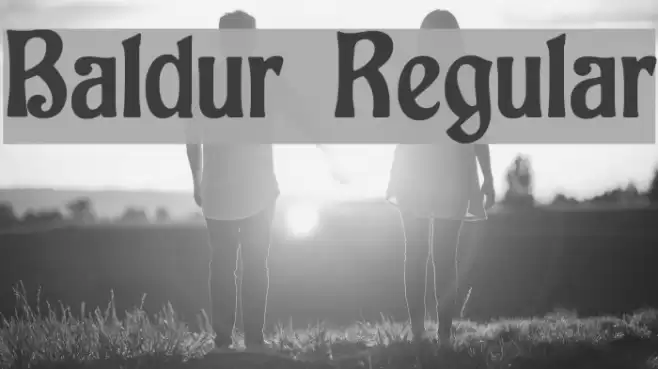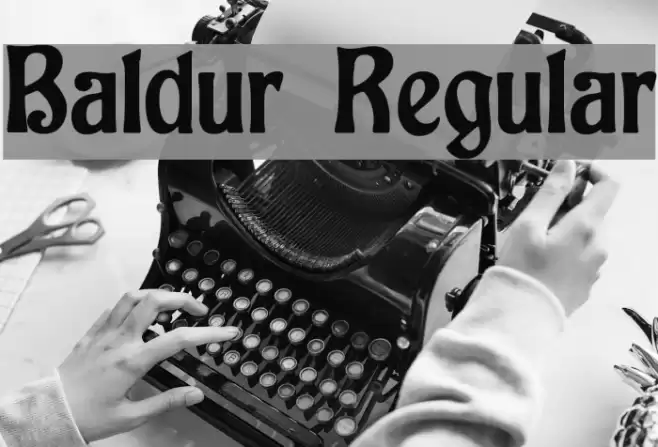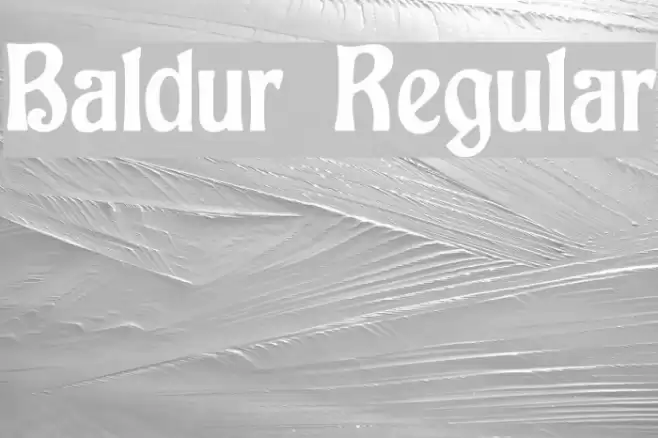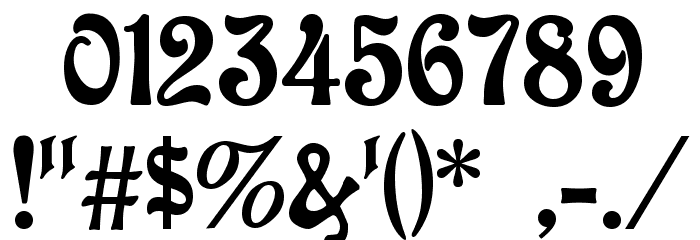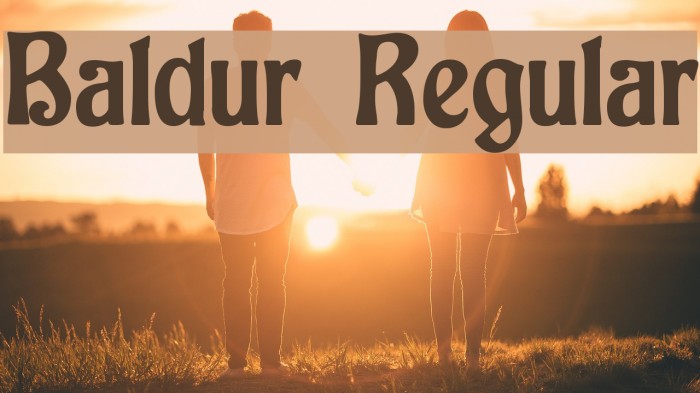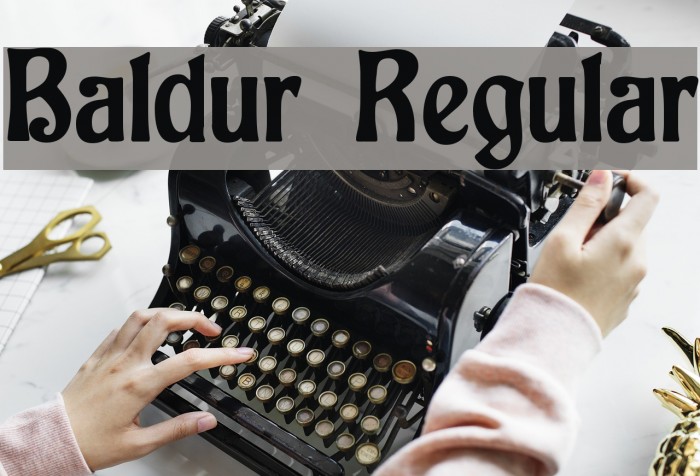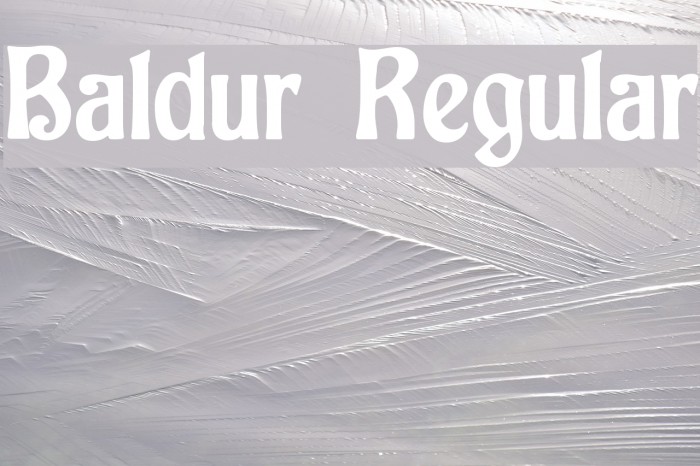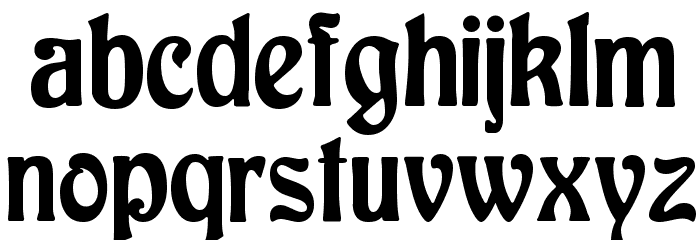
Baldur Regular Font
Baldur Regular Description
This font features a bold and decorative style with a strong presence. The characters have a unique, artistic flair, with some letters incorporating swirls and curves that add to its distinctiveness. The uppercase letters are particularly striking, with a medieval or fantasy-inspired aesthetic. The lowercase letters maintain the same decorative style, ensuring consistency throughout the typeface. Numbers and special characters are designed to match the overall theme, making this font suitable for creative and eye-catching designs.
A bold, decorative font with a medieval-inspired aesthetic from Retro fonts.
- Proposed Projects: Ideal for fantasy-themed projects, book covers, posters, and branding that requires a distinctive and artistic touch.